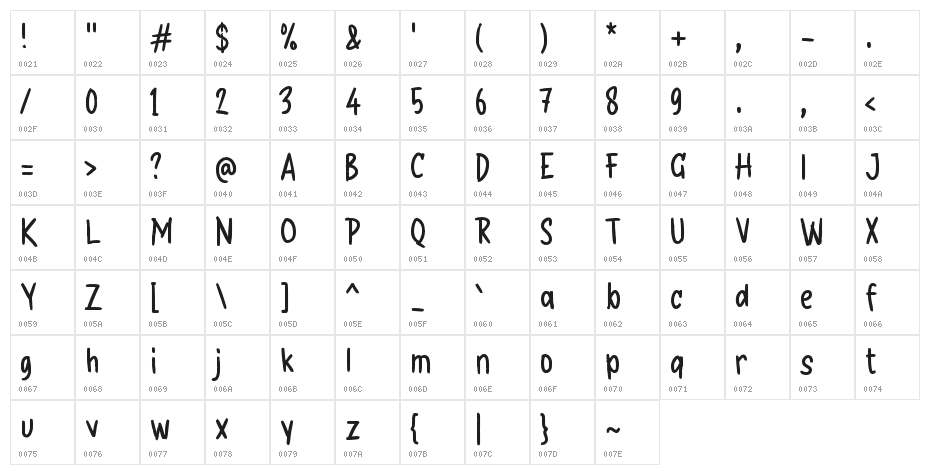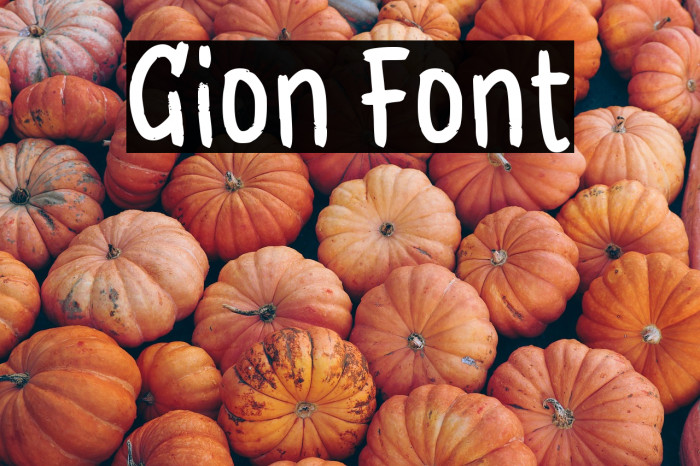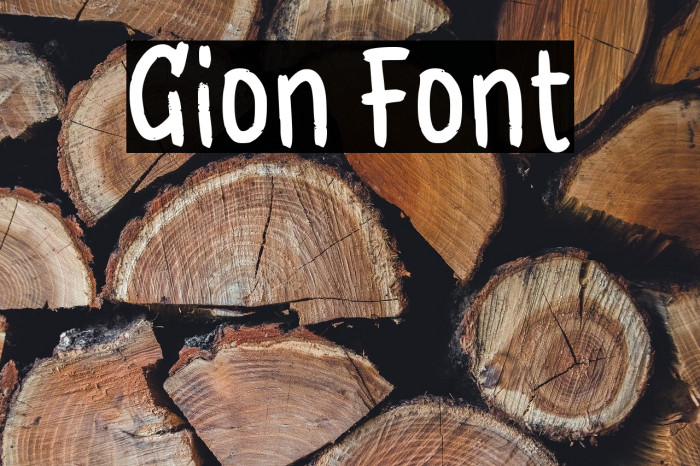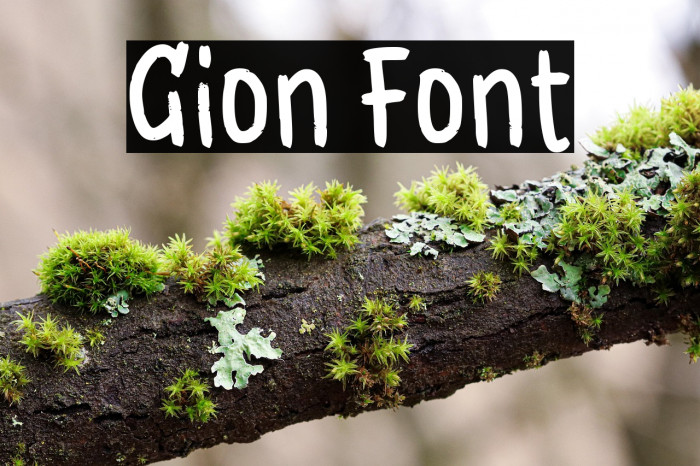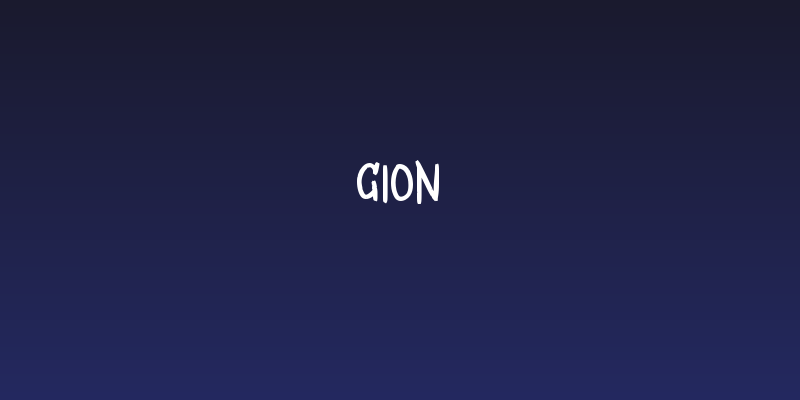
Gion Font
Gion Description
This font features a playful and informal handwritten style, characterized by its uneven strokes and casual appearance. The letters have a slightly irregular baseline, giving them a dynamic and lively feel. The uppercase and lowercase letters maintain a consistent style, with rounded edges and a moderate thickness that ensures readability. Numbers and special characters are crafted with the same playful touch, making them suitable for creative and informal contexts. The overall appearance is friendly and approachable, ideal for projects that require a personal touch.
| Overall Style | Casual |
| Use Case | Headlines, Logos, Informal text |
| Proposed Projects | Ideal for greeting cards, children's books, casual branding, and social media graphics. |